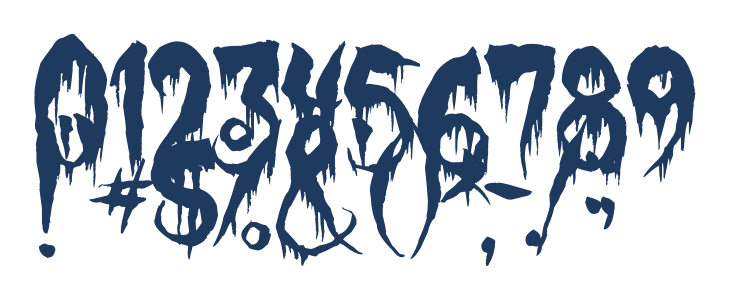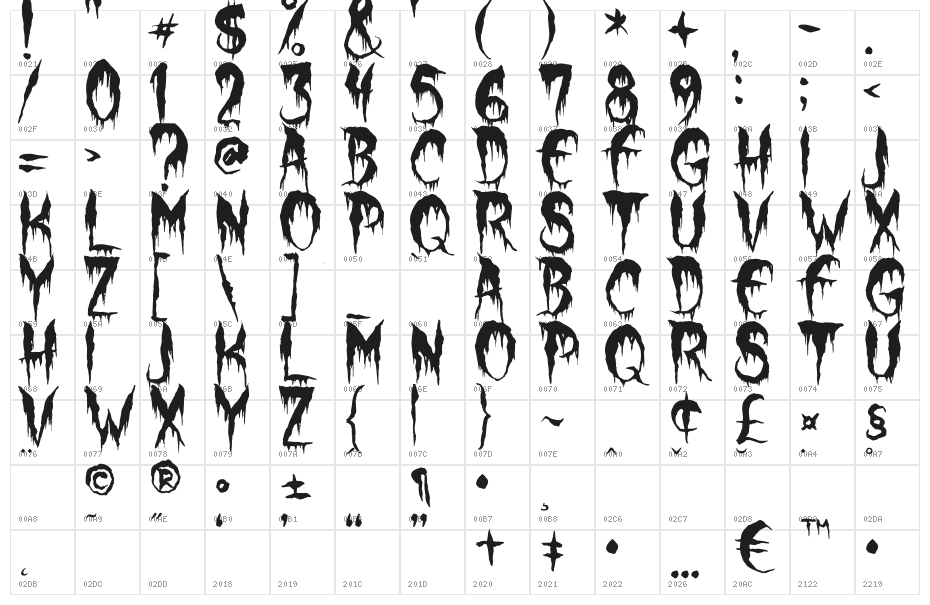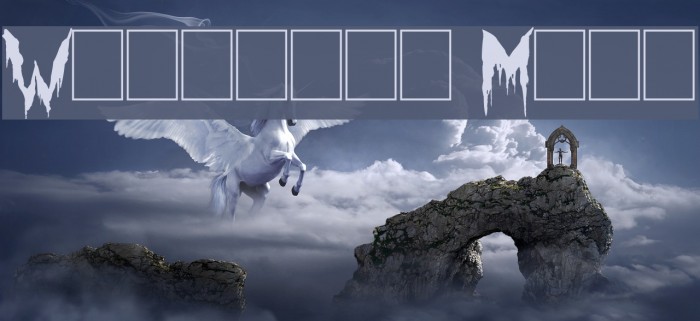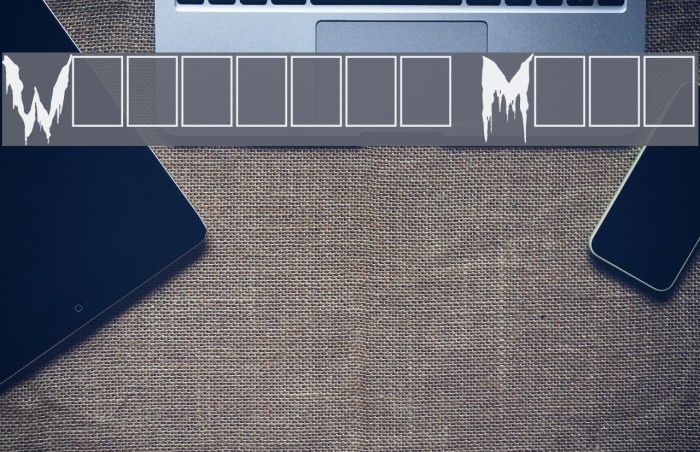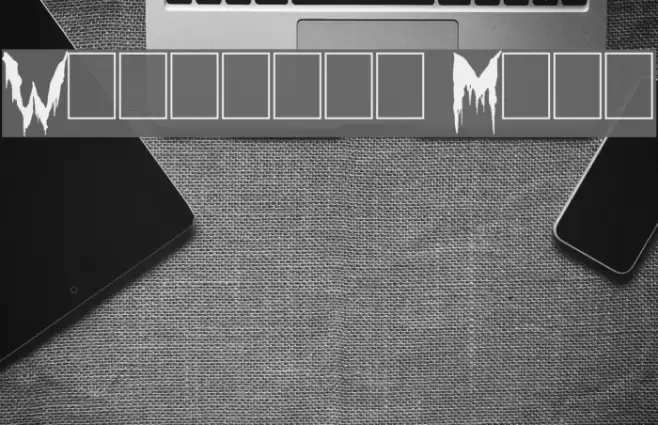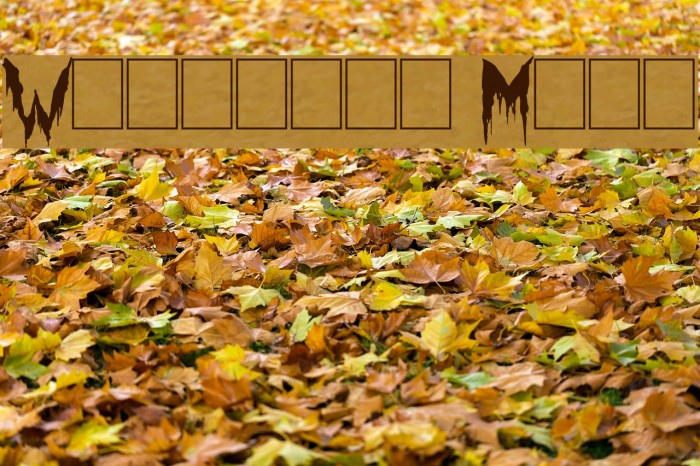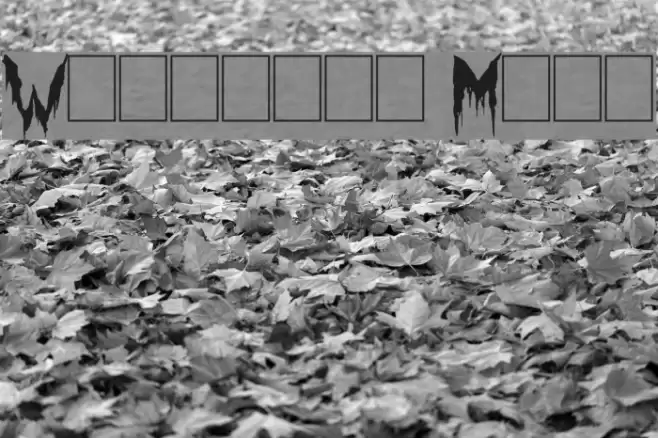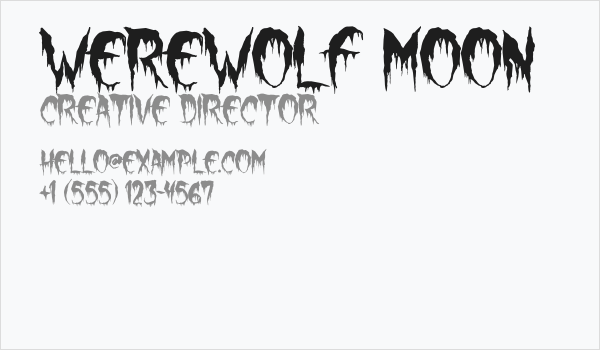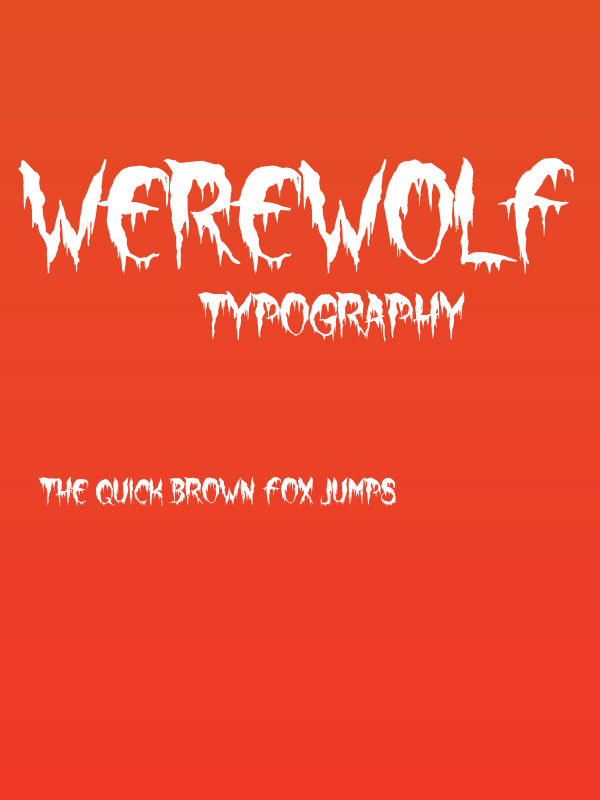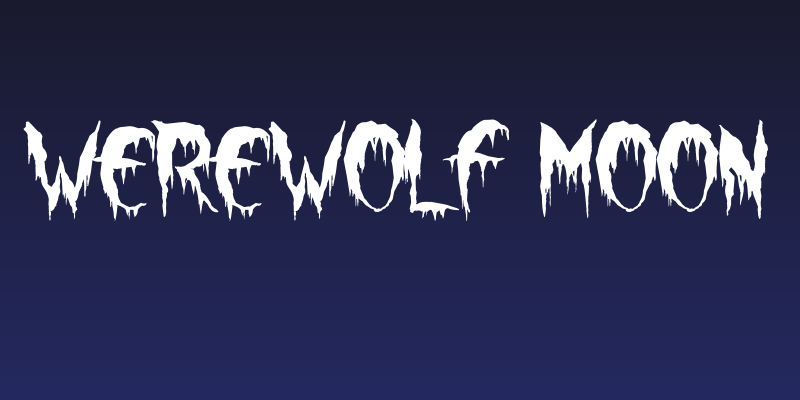
Werewolf Moon Font
Werewolf Moon Description
This font features a highly decorative and horror-inspired design, with letters that appear to be dripping or melting, reminiscent of a werewolf theme. The uppercase letters are bold and jagged, giving a sense of movement and chaos. The numbers and special characters follow the same dripping style, enhancing the eerie and unsettling aesthetic. This font is perfect for creating a spooky or Halloween-themed atmosphere, with its unique and eye-catching appearance. The overall design is both playful and menacing, making it suitable for projects that require a dramatic and thematic touch.
| Proposed Projects | Ideal for Halloween posters, horror movie titles, themed party invitations, and haunted house signage. |